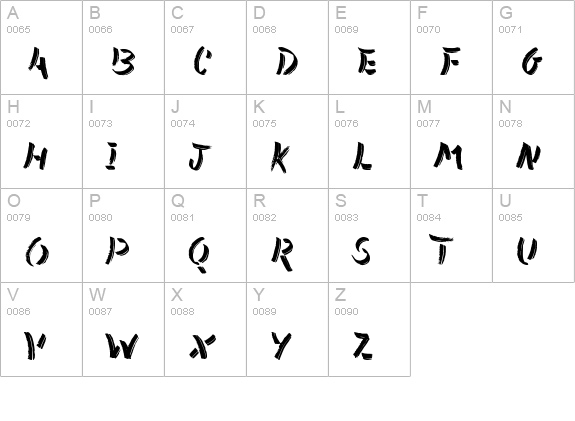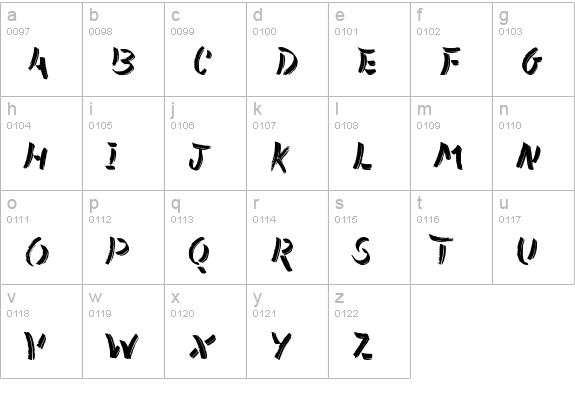
Air Brush Font Details
Air Brush font is a captivating and dynamic typeface that brings a touch of urban energy to any design project. With its bold and stylish letterforms, this font effortlessly captures the essence of street art and graffiti. The thick brush strokes and edgy details give it a raw and rebellious feel, making it perfect for projects that require a bold statement. This font is not only visually striking but also highly versatile. Whether you're designing a poster, a logo, or a social media graphic, Air Brush font will instantly grab attention and leave a lasting impression. Its bold and expressive nature makes it great for headlines and titles, while its legibility ensures that your message is always clear and impactful. What makes Air Brush font even more appealing is that it is available for free. That's right, you can freely download this unique and eye-catching font at FontsMarket.com. With just a few clicks, you can add this powerful tool to your design arsenal and bring your creative visions to life. So why wait? Get your hands on Air Brush font today and let your designs soar to new heights.